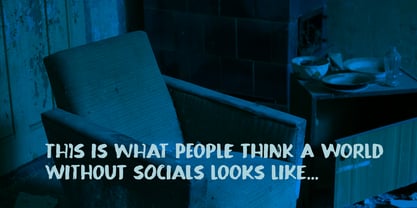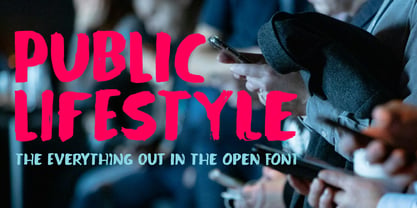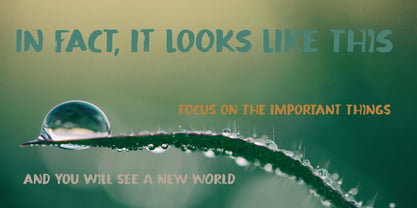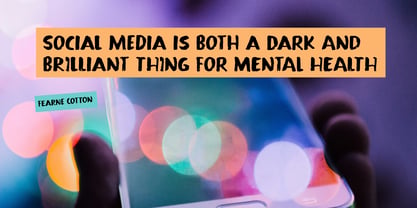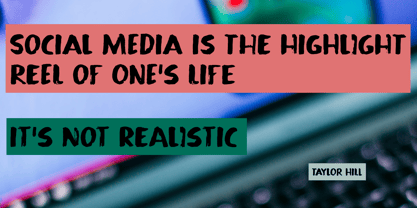
Public Lifestyle Pro
Die Schriftfamilie Public Lifestyle Pro wurde von David Kerkhoff entworfen und von Hanoded veröffentlicht. Public Lifestyle Pro enthält 2 Stile und Familienpaketoptionen. Mehr über diese Familie
I buy and sell of a lot of things on the second hand marketplace. One day I sold something and the person who bought it had an interesting name, so I decided to see what I could find out about him. Within 5 minutes of searching the internet, I found out where he lived, who his friends were, what his girlfriend looked like (and her friends too). I knew where he lived, his job, his previous jobs. I knew where he went on holiday and what he liked to eat. This guy hadn’t shielded any information; it was all public!
I tell my kids to be careful with what they put on the internet. It’s ok to tell a little bit about yourself, but if people really want to know you, they can meet you in person!
Public Lifestyle is an ‘all out in the open’ kind of font. It was made using ink and a brush. It is fat, flamboyant and very loud. Use it for whatever you like!
Hanoded is run by Dutchman David Kerkhoff. His fonts are a mishmash of styles, as he just creates whatever pops into his head. You will find a lot of brush fonts in his collection, as his favourite tools are brushes and Chinese ink, with cartoon style fonts and script fonts complementing his repertoire. Aside from making fonts, David occasionally guides tours in far-flung places, renovates his '30's house and tries reasoning with his wife and (teenage) kids. Not an easy task!